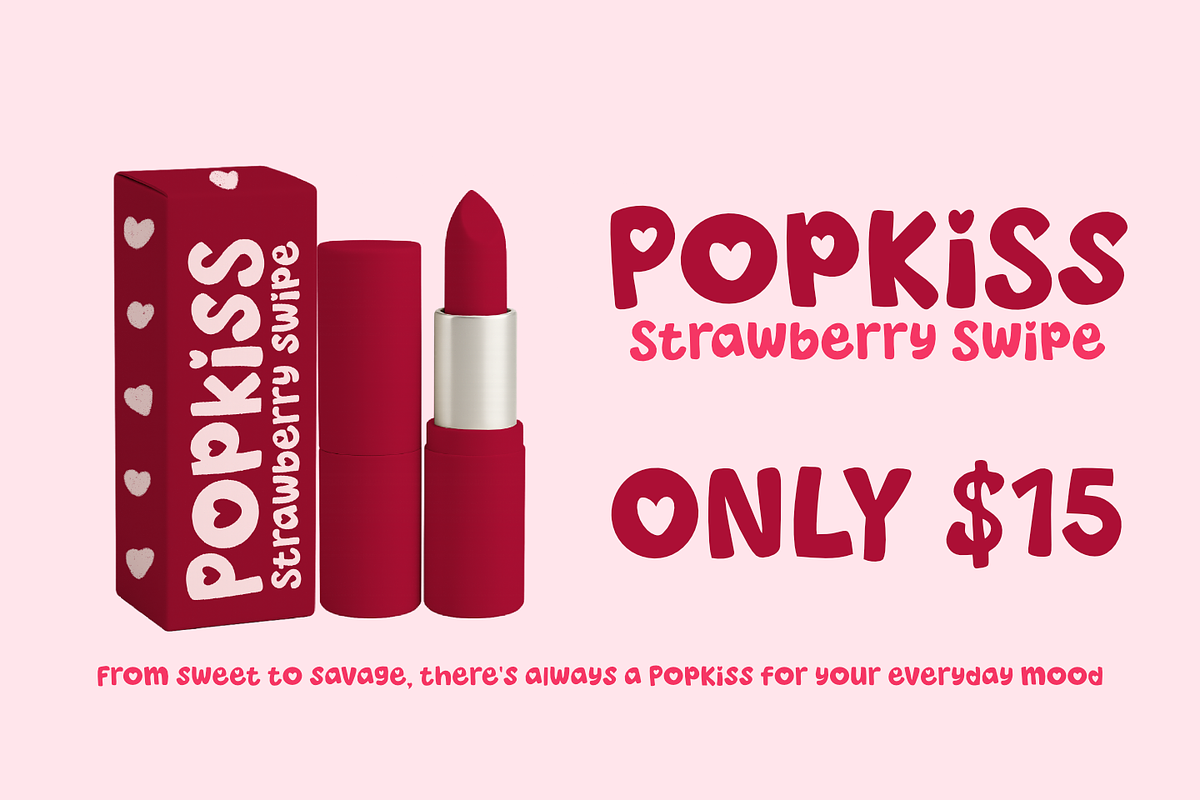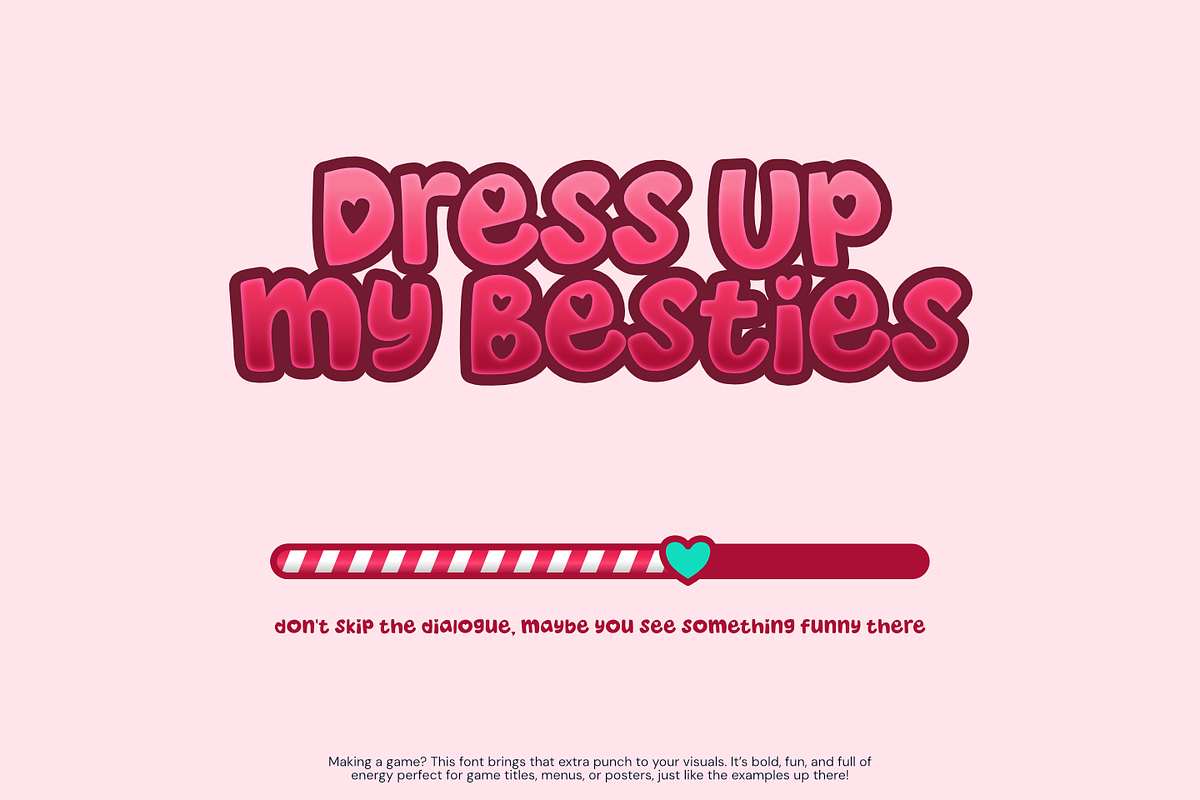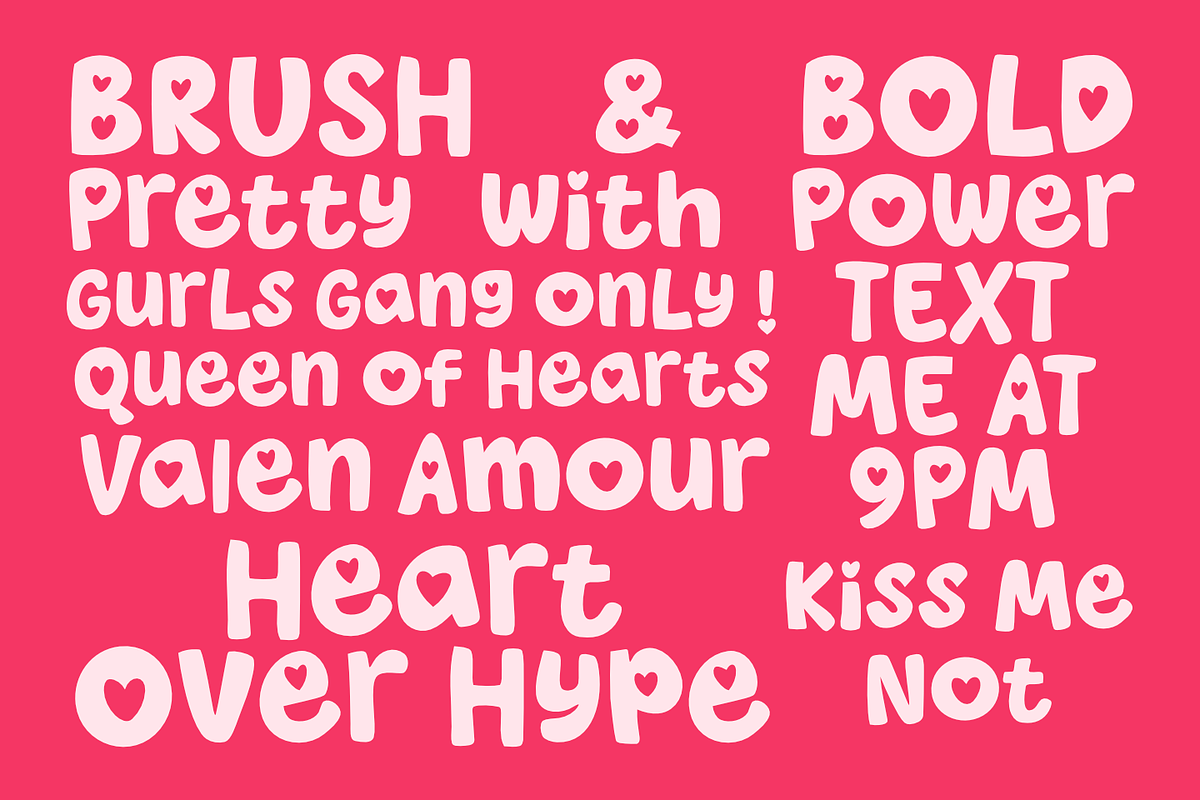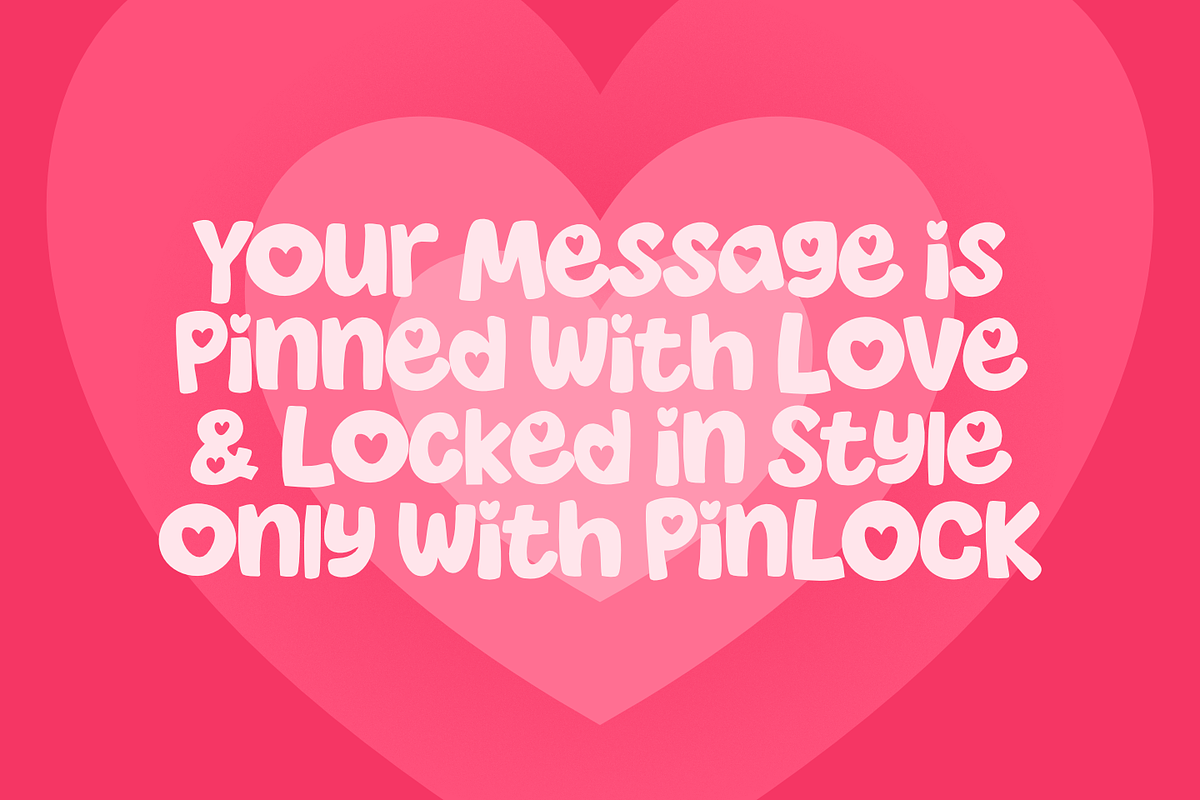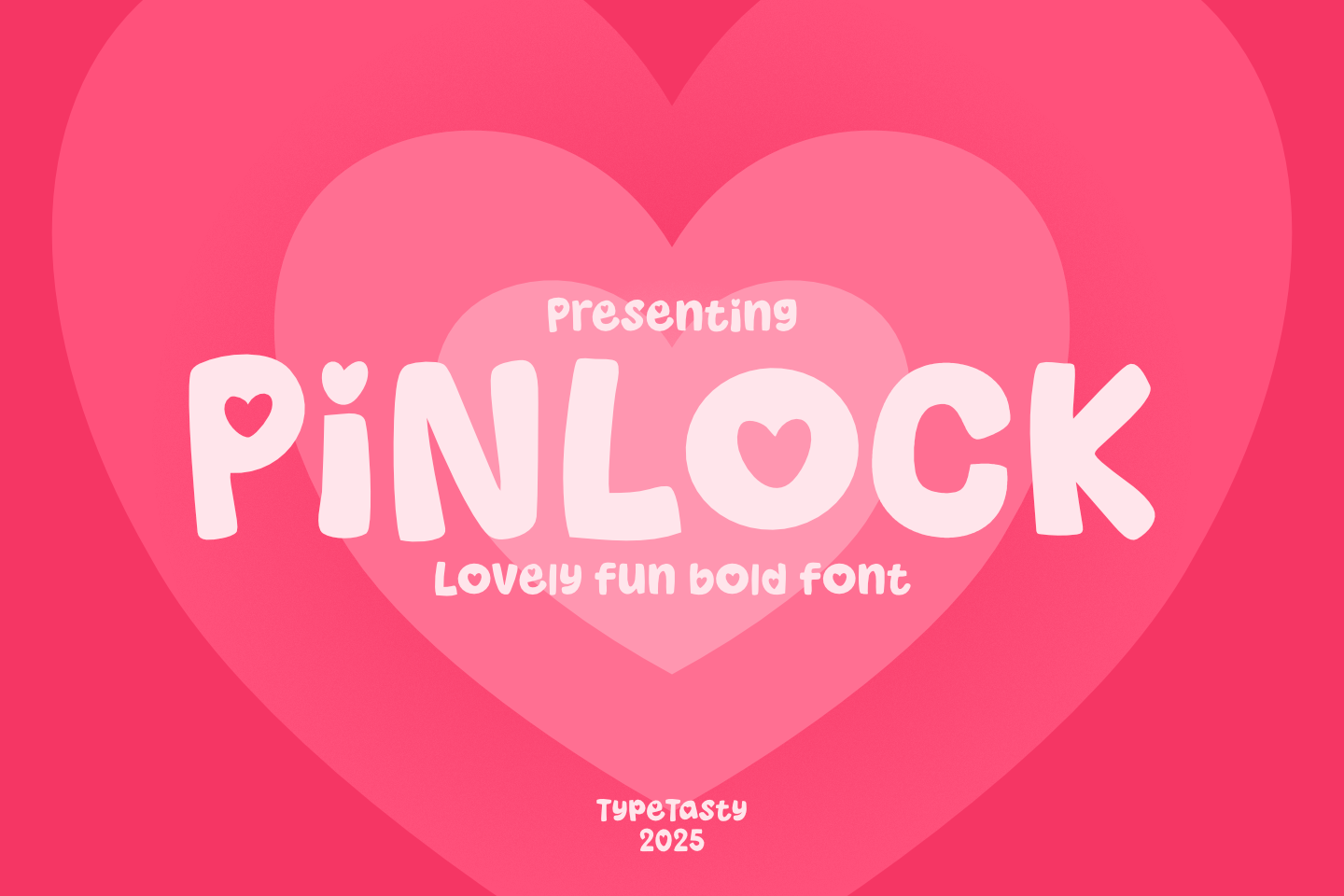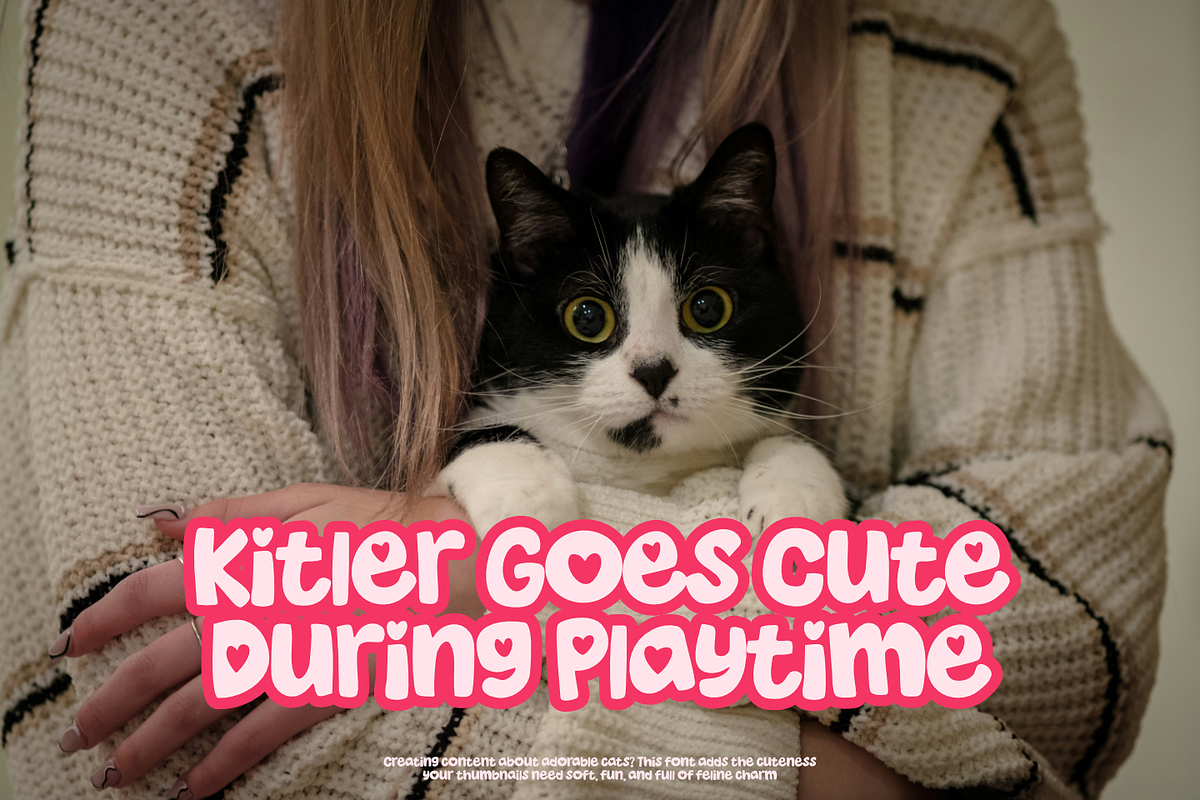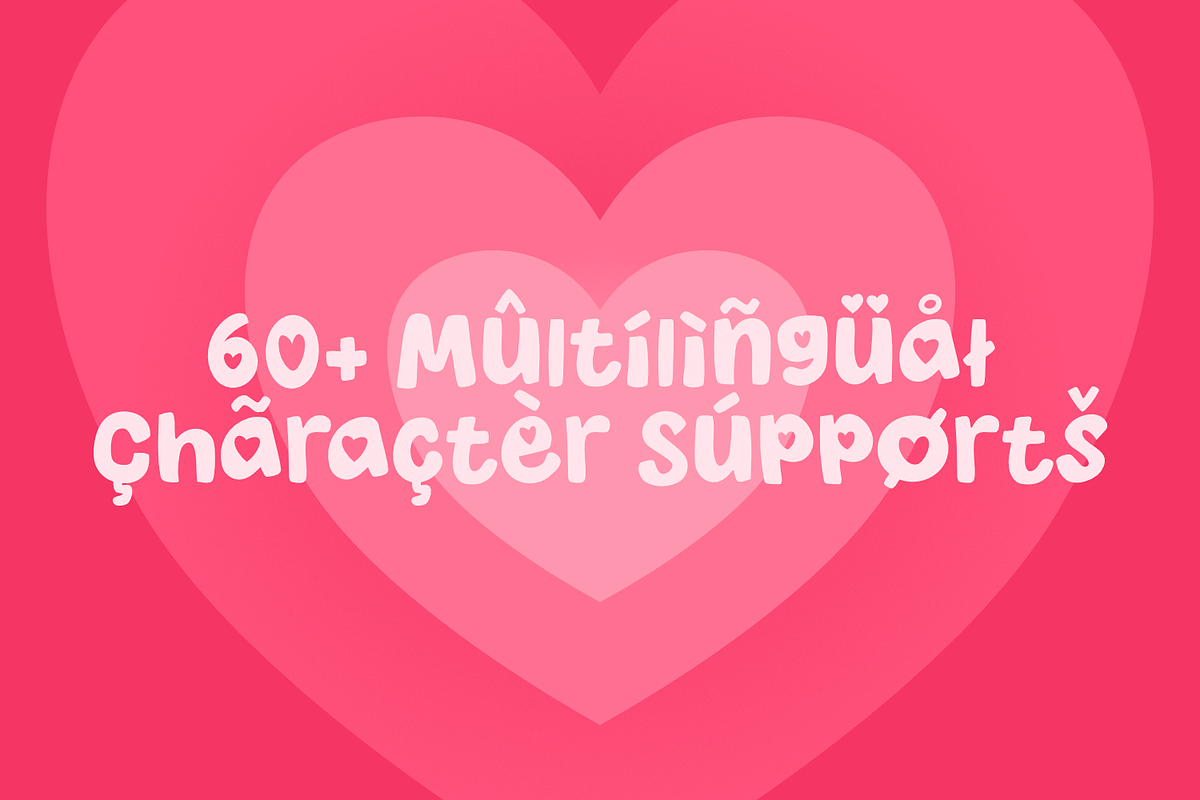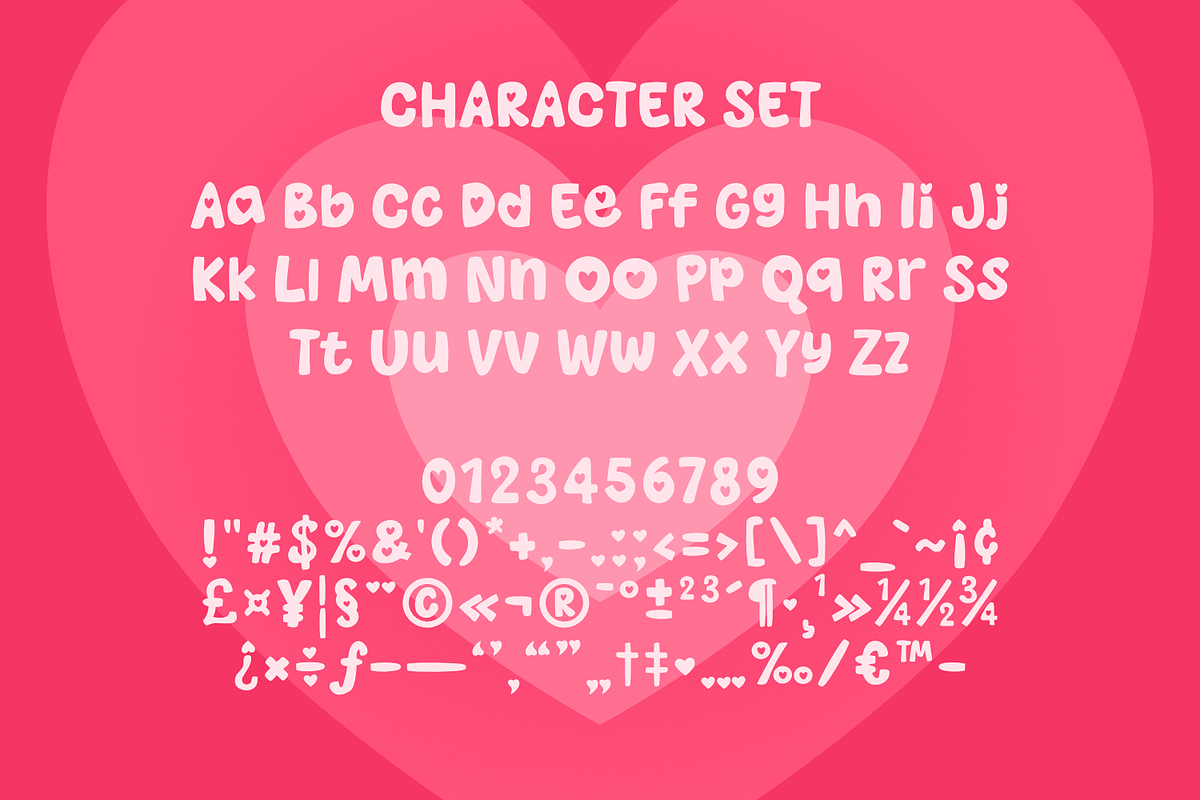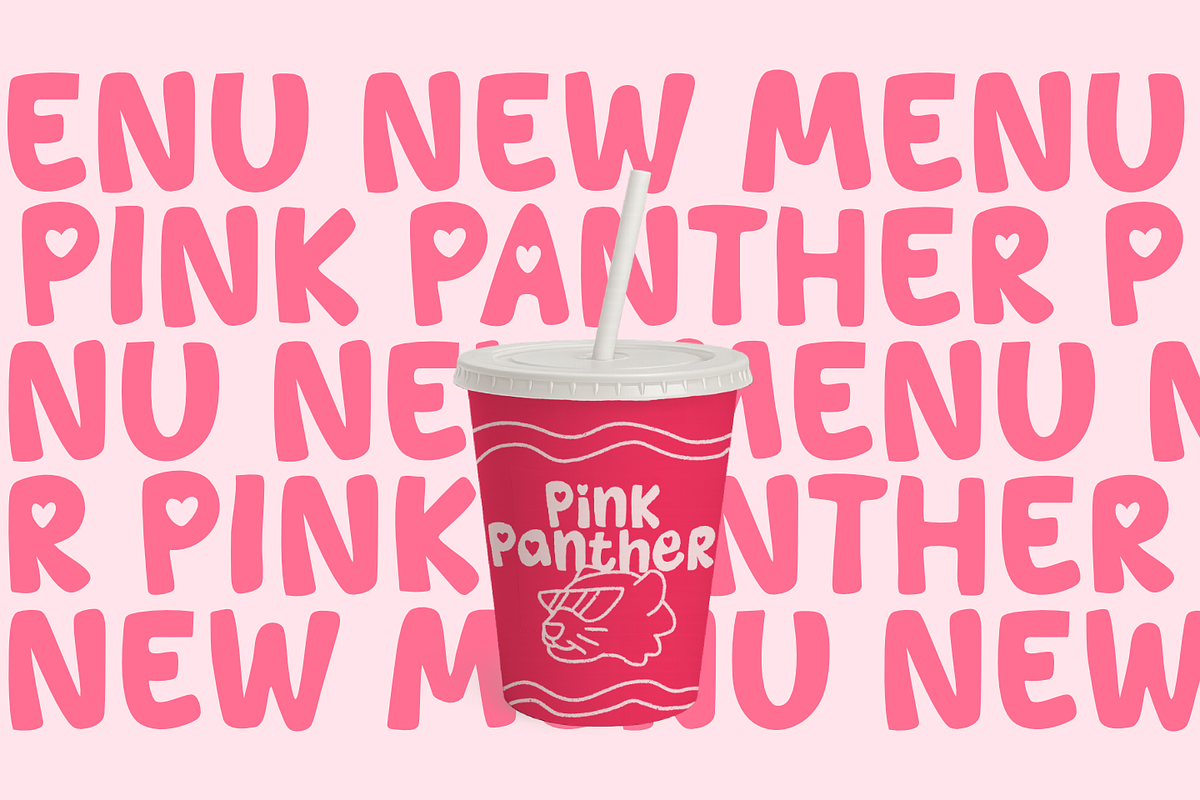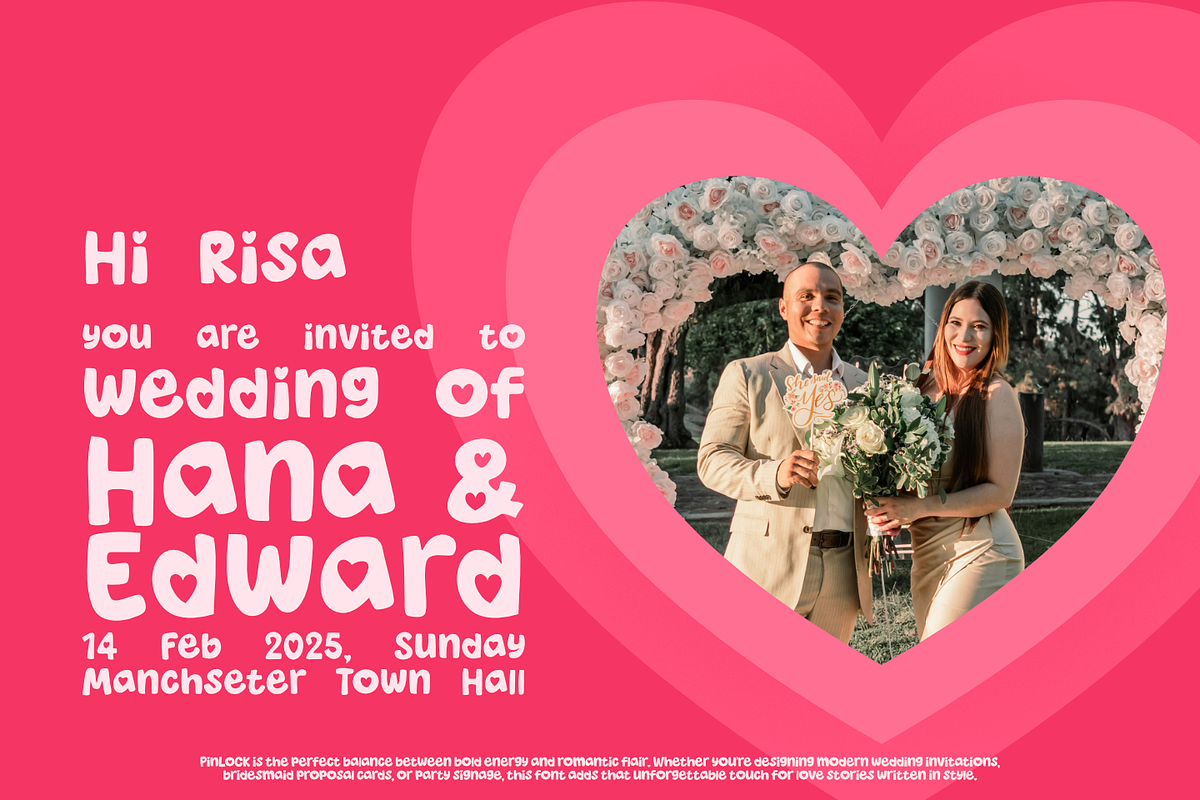
PINLOCK – Lovely Fun Bold Font
PINLOCK is a lovely, fun bold font with rounded forms and heart-filled character. It’s the perfect choice for designs that want to feel soft, sweet, and full of charm from Valentine’s cards to kid-friendly packaging and romantic social media posts. With a bubbly structure and playful personality, PINLOCK brings warmth and love to every letter, making it ideal for cute design lovers, hobby crafters, and professional creatives alike.
Looking to melt hearts at first glance? PINLOCK is the font that turns every message into something adorable and unforgettable. It brings joy, charm, and love into your designs effortlessly.
Designed to capture attention and spark emotion, PINLOCK is a go-to choice for:
Valentine’s cards
Children’s merchandise
Cute brand packaging
DIY crafts and stickers
Its friendly and handcrafted feel makes it ideal for Instagram posts, YouTube thumbnails, or anything needing a soft but bold visual voice.